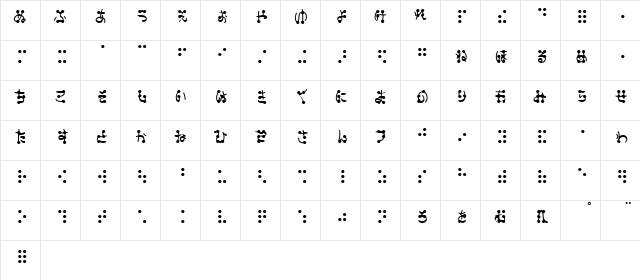
enen hira
Design Context for enen Typeface
enen is a composed and adaptable typeface that performs quietly and consistently across a wide range of design contexts.